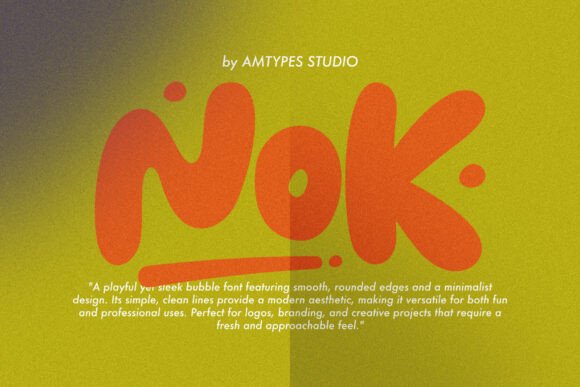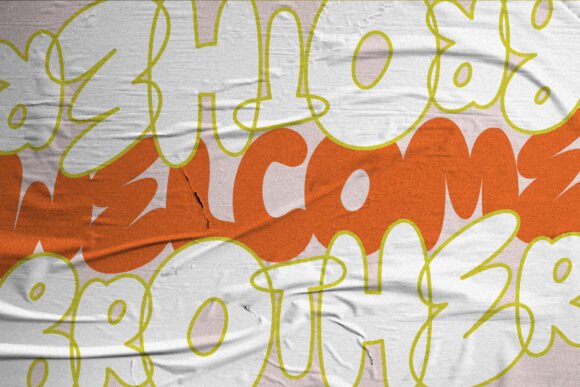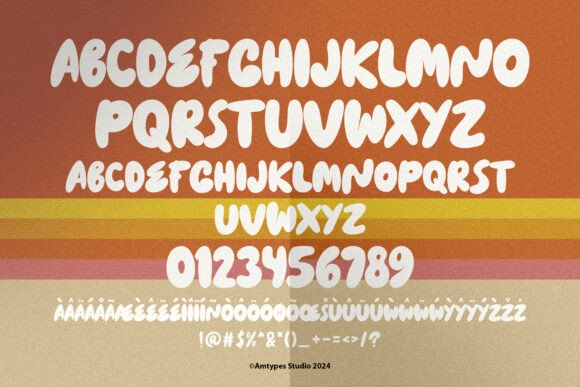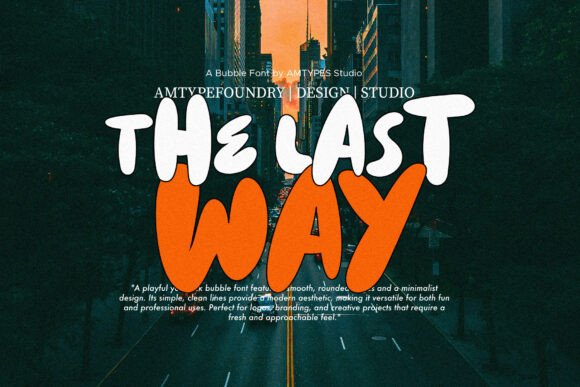
Nok Font: A Modern Bubble Font for Playful Logo Design
About the Nok Font
Step up your design game with Nok Font, a font that exudes confidence and style. We are excited to introduce Nok, a fresh new font designed with simplicity, cleanliness, and a modern twist on the classic bubble style. Nok features rounded edges and soft curves that bring a playful yet sophisticated touch to any design. Perfect for logos, headlines, posters, or any creative project that calls for a friendly and contemporary look, Nok combines effortless readability with a unique personality.
Nok’s playful yet sophisticated nature makes it ideal for branding projects targeting a young, modern audience, particularly those emphasizing fun and approachability. It excels in headlines, short-form text, and logos, adding a friendly touch to posters and packaging designs. However, its rounded forms might prove less effective for lengthy body text or UI elements requiring high legibility at smaller sizes.
Pairing Nok with a clean sans-serif like Open Sans for body copy provides excellent contrast and readability. For a more sophisticated feel, consider a classic serif like Garamond, which balances Nok’s playfulness with a touch of elegance. Alternatively, a geometric sans-serif such as Futura can enhance Nok’s modern aesthetic.
Nok’s overall personality is best described as friendly and modern with a touch of subtle elegance. Its rounded forms prevent it from feeling overly bold or aggressive, making it suitable for brands that want to project a positive and approachable image without sacrificing visual impact.
Nok Font Usage Examples
Nok Font Example